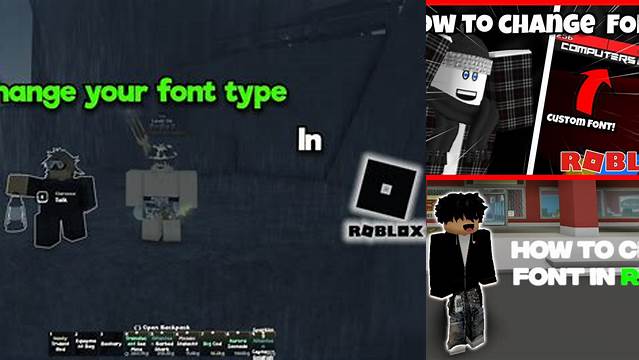
Change Roblox Fonts: A Step-by-Step Guide
Changing fonts in Roblox can add a unique flair to your games and enhance the overall user experience. Whether you're looking to create a specific atmosphere or simply want to personalize your game, understanding how to modify fonts is a valuable skill for any Roblox developer. This guide will walk you through various methods, from using in-game settings to advanced scripting techniques, ensuring you can achieve the perfect look for your projects. Let's dive in and explore how to make your Roblox games visually stand out!
Understanding Roblox Fonts
Before we get into the nitty-gritty of changing fonts, let's understand what Roblox offers in terms of font options. By default, Roblox provides a set of standard fonts that are used across its user interface and in-game text elements. These fonts are designed to be readable and consistent, but they might not always align with your creative vision. Knowing the available fonts and their characteristics is the first step in customizing your game's appearance. For example, the default font is clear and functional, but for a horror game, you might want something more stylized and spooky. This section will help you familiarize yourself with the basic fonts available and how they can impact your game's aesthetics.
Available Default Fonts in Roblox
Roblox offers a range of default fonts, each with its unique style and readability. These fonts are readily available for use in your games without needing to import external resources. Understanding these fonts is crucial for making informed decisions about your game's typography. Some of the common default fonts include Arial, which is a clean and versatile font suitable for general text; SourceSans, known for its modern and readable design, ideal for user interfaces; and SciFi, which adds a futuristic touch, perfect for sci-fi themed games. Additionally, there's Fantasy, providing an elegant and whimsical feel, and Arcade, giving a retro, pixelated look that’s great for classic game styles. Each font can significantly influence the mood and readability of your game, so choosing the right one is essential for creating a cohesive and engaging player experience. By experimenting with different fonts, you can find the perfect match that enhances your game's overall aesthetic and ensures clear communication with your players.
The Impact of Font Choice on User Experience
The font choice in your Roblox game significantly impacts the user experience. A well-chosen font can enhance readability, making it easier for players to understand instructions, dialogue, and other essential information. On the other hand, a poorly chosen font can strain the eyes, cause confusion, and detract from the overall enjoyment of the game. Consider the context of your game when selecting fonts. For instance, a clear and simple font like Arial or SourceSans might be best for instructional text and user interfaces, while a more stylized font like SciFi or Fantasy could be used for decorative elements or specific game themes. Consistency is also key; using too many different fonts can make your game look cluttered and unprofessional. By carefully considering the impact of font choice on readability and aesthetics, you can create a more polished and user-friendly gaming experience. Ultimately, the right font will not only make your game look better but also improve player engagement and satisfaction.
Basic Methods to Change Fonts
There are several basic methods to change fonts in Roblox, suitable for beginners and those who prefer a straightforward approach. These methods typically involve using the built-in properties of TextLabel and TextBox objects. By accessing these properties, you can quickly modify the font, size, and style of text elements in your game. This section will guide you through these fundamental techniques, providing step-by-step instructions to get you started with font customization. Whether you're designing a simple UI or adding dialogue to your game, these basic methods offer a convenient way to enhance your text elements without delving into complex scripting.
Using TextLabel Properties
The TextLabel object in Roblox is a fundamental UI element used to display text. To change the font using TextLabel properties, you need to access the TextLabel in the Roblox Studio. First, select the TextLabel you want to modify. In the Properties window, locate the 'Font' property. Click on the dropdown menu, and you'll see a list of available default fonts. Choose the font that best suits your needs. You can also adjust other properties like 'FontSize' to change the size of the text, 'TextColor3' to change the color, and 'TextStrokeColor3' to add an outline. Experiment with these properties to achieve the desired look. For instance, you might use a larger font size for important messages or a different color to highlight specific text. Remember to test your changes in-game to ensure the font looks good on different devices and resolutions. By mastering these basic TextLabel properties, you can significantly enhance the visual appeal and readability of your game's text elements.
Utilizing TextBox Properties
Similar to TextLabel, the TextBox object allows you to change fonts using its properties. The TextBox is primarily used for collecting user input, but it also displays text with customizable fonts. To modify the font, select the TextBox in Roblox Studio and navigate to the Properties window. Find the 'Font' property and choose from the available options. Additionally, you can adjust the 'TextSize' property to control the font size, 'TextColor3' for the text color, and 'PlaceholderColor3' for the color of the placeholder text. The 'PlaceholderText' property allows you to display a hint to guide users on what to input. Customizing these properties can make your input fields more visually appealing and user-friendly. For example, you might use a different font and color for the placeholder text to distinguish it from the user's input. By effectively utilizing TextBox properties, you can create a more polished and intuitive interface for your Roblox game, encouraging better user interaction and a more engaging experience.
Advanced Font Customization
For those looking to take their font customization to the next level, advanced techniques offer greater flexibility and control. These methods often involve scripting and the use of external font resources. By implementing advanced customization, you can incorporate unique fonts that are not available by default in Roblox, giving your game a distinctive visual identity. This section will explore how to use custom fonts, implement dynamic font changes, and optimize fonts for different devices. These advanced techniques require a deeper understanding of Roblox scripting and resource management, but they can significantly enhance the overall aesthetic of your game.
Importing Custom Fonts
Importing custom fonts into Roblox allows you to use unique typography that isn't available by default. To do this, you'll need to use a font file, typically in .ttf or .otf format. First, ensure you have the rights to use the font, as many fonts are licensed. Once you have a suitable font file, upload it to Roblox as a font asset. In Roblox Studio, go to the 'View' tab and open the 'Asset Manager.' Click the '+' button and select 'Font' to upload your font file. After uploading, you can reference the font asset in your scripts. To apply the custom font to a TextLabel or TextBox, use the Font property and set it to the ID of your uploaded font asset. For example, TextLabel.Font = Font.new("rbxassetid://YOUR_FONT_ID"). Remember to replace YOUR_FONT_ID with the actual ID of your font asset. Using custom fonts can significantly enhance the visual appeal of your game, allowing you to create a unique and immersive experience for your players. However, be mindful of the font file size, as large fonts can impact loading times.
Dynamic Font Changes via Scripting
Dynamic font changes via scripting enable you to alter the font of text elements in real-time based on in-game events or user interactions. This can add a dynamic and interactive element to your game, making it more engaging for players. To implement dynamic font changes, you'll need to use Roblox's scripting language, Lua. First, identify the event that should trigger the font change, such as a player clicking a button or entering a specific zone. Then, write a script that listens for this event and modifies the Font property of the TextLabel or TextBox accordingly. For example, you could create a script that changes the font to 'SciFi' when a player enters a spaceship and reverts to 'Arial' when they exit. The script might look something like this: game.Players.LocalPlayer.Character:WaitForChild("HumanoidRootPart").Touched:Connect(function(hit) if hit.Name == "SpaceShipZone" then script.Parent.Font = Enum.Font.SciFi else script.Parent.Font = Enum.Font.Arial end end). Remember to adjust the script to fit your specific game logic and element names. Dynamic font changes can create a more immersive and responsive game environment, enhancing the overall player experience.
Changing fonts in Roblox is a powerful way to personalize your games and enhance the user experience. By understanding the available options, utilizing basic and advanced techniques, and adhering to best practices, you can create visually stunning and user-friendly games. Experiment with different fonts, optimize them for various devices, and always prioritize readability. With these skills, you'll be well-equipped to create Roblox games that stand out and captivate your audience. Happy developing, guys!